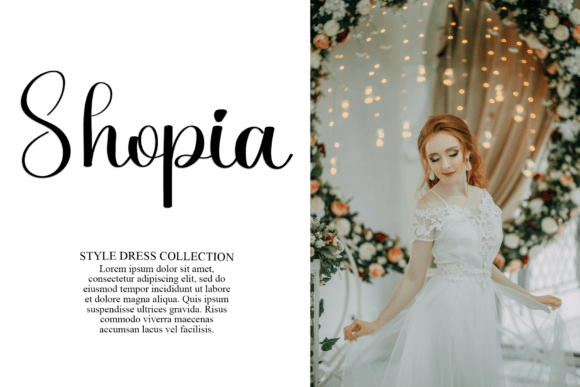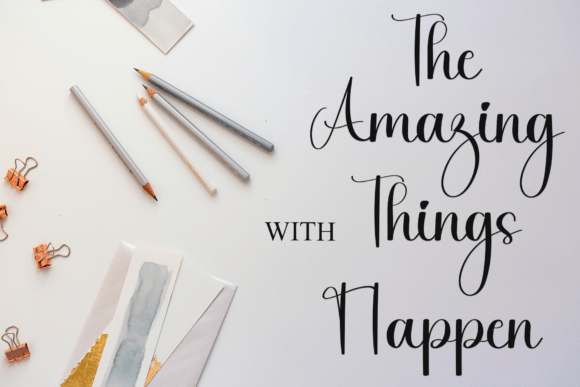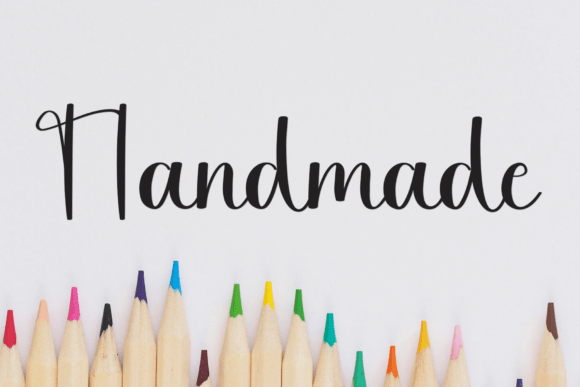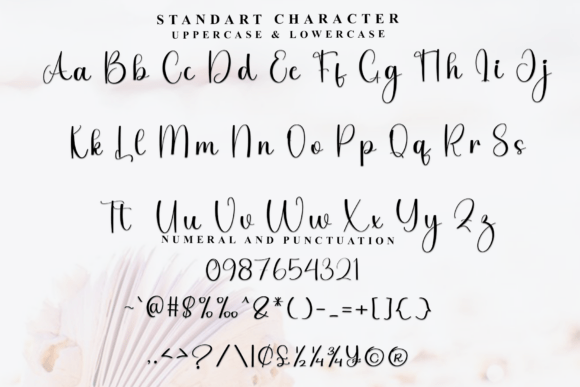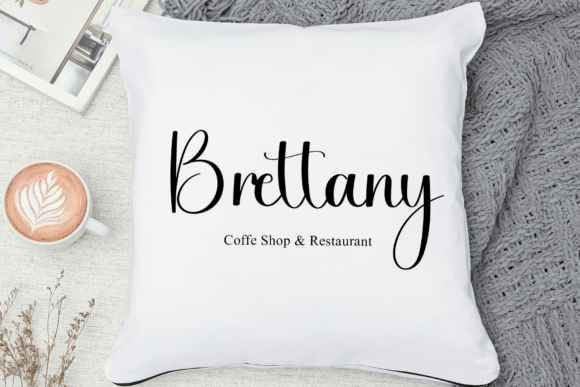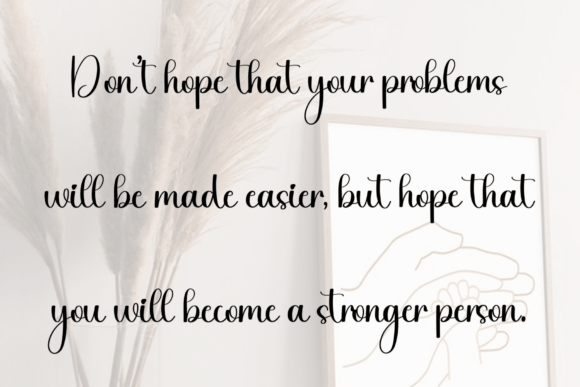
Introducing Handsome Font: The Ultimate Holiday Typeface
Are you looking for a font that captures the essence of the holiday season? Do you want to add a touch of magic to your designs and make them stand out from the crowd? Look no further than Handsome Font, a festive and merry typeface that’s perfect for greeting cards, gift tags, and holiday-themed projects.
Handsome Font is a decorative typeface that’s specifically designed to bring the spirit of the holiday season to your designs. With its whimsical flair and enchanting elements, this font is sure to add a touch of wonder to your words. Whether you’re creating holiday greeting cards, gift tags, or festive posters, Handsome Font is the perfect choice.
Handsome Font is ideal for a wide range of holiday-themed projects, including:
- Greeting cards: Create beautiful and festive holiday greeting cards that will make your loved ones feel special.
- Gift tags: Add a personal touch to your gifts with custom gift tags that feature the Handsome Font.
- Holiday posters: Create eye-catching posters that showcase the magic of the holiday season.
- Social media graphics: Add a touch of festive flair to your social media graphics and make them stand out from the crowd.
One of the best things about Handsome Font is that it’s PUA (Private Use Area) encoded, which means you can access all of the amazing glyphs and ligatures with ease. This makes it easy to create beautiful and intricate designs that showcase the full range of the font’s capabilities.
PUA encoding is a way of encoding fonts that allows designers to access a wide range of glyphs and ligatures. This means that you can use the font to create complex and intricate designs that would be impossible to achieve with a standard font.
Benefits of Using Handsome Font
There are many benefits to using Handsome Font in your designs, including:
- Unique and festive look: Handsome Font has a unique and festive look that’s sure to make your designs stand out from the crowd.
- Easy to use: The font is PUA encoded, which makes it easy to access all of the amazing glyphs and ligatures.
- Versatile: Handsome Font can be used for a wide range of holiday-themed projects, from greeting cards to social media graphics.
- High-quality: The font is high-quality and designed to look great in a variety of sizes and resolutions.
Tips for Using Handsome Font
Here are a few tips for using Handsome Font in your designs:
- Experiment with different sizes and colors: Handsome Font looks great in a variety of sizes and colors, so don’t be afraid to experiment and find the look that works best for your design.
- Use it with other fonts: Handsome Font can be paired with other fonts to create a unique and interesting look.
- Take advantage of the glyphs and ligatures: The font has a wide range of glyphs and ligatures that can be used to add a touch of magic to your designs.